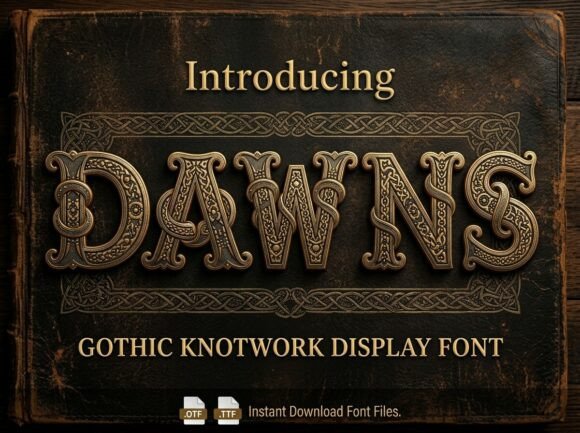
Medieval fonts are among the most misused typefaces in design, mostly because people choose them on atmosphere and then discover the practical problems afterwards. Blackletter capitals are frequently unreadable to modern eyes. The letterforms are dense enough that spacing errors merge whole words. Fine manuscript detail vanishes the moment you print small. This collection covers twenty medieval fonts with those problems addressed rather than ignored.
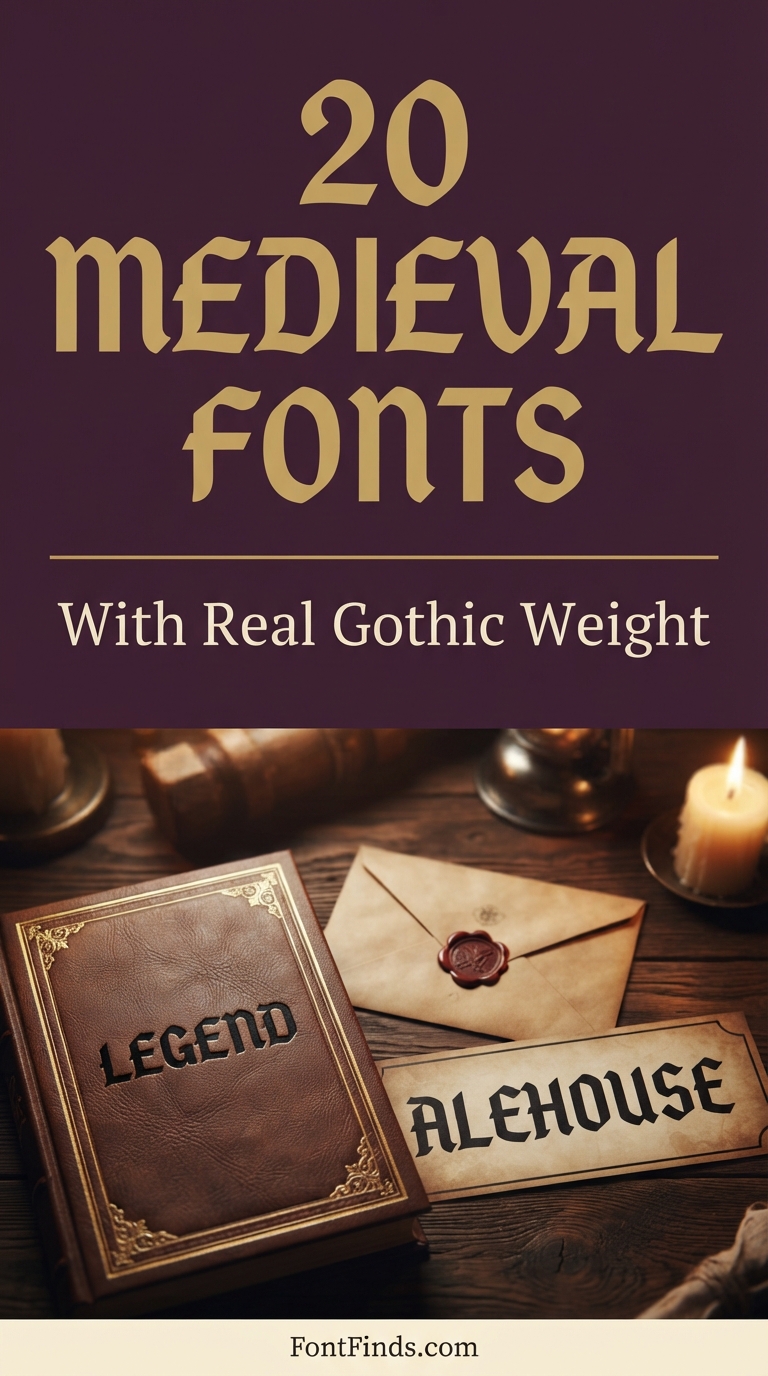
Why Medieval Fonts Are Harder to Use Than They Look
Blackletter developed as a handwriting system, written with a broad-nib pen held at a fixed angle. Every characteristic of the style follows from that tool: the thick vertical stems, the thin diagonal connectors, the angular terminals where the nib lifted. Understanding that origin explains most of the practical problems.
The first is density. Blackletter was designed to fit more text on expensive parchment, which means the letters are narrow and the gaps between them are deliberately small. Set it with default spacing at a large size and words visually merge into a solid block.
The second is capital legibility. Gothic majuscules were decorative initials, not everyday letters, and many are unrecognisable to anyone who has not studied the tradition. A capital that reads clearly to you may read as a completely different letter to your audience.
The third is reproduction. Authentic revivals carry the fine hairlines a pen produced. Those hairlines survive screen display and high-quality printing, and disappear in embroidery, vinyl cutting and small-scale print. Heavier modern reinterpretations solve this, which is why so many entries below are described as bold rather than authentic.
On historical associations. Blackletter carries specific cultural baggage in some regions, particularly in Germany where the style was heavily used in twentieth century political propaganda and remains loaded as a result. If your work will be seen in a European market, it is worth being aware that the same typeface reads differently there than it does elsewhere.
20 Medieval Fonts
Bold Blackletter
1. Ironcrest Gothic
Ironcrest Gothic is a commanding blackletter display face, and commanding is the right word for where it sits in the range. This is not the delicate manuscript end of the tradition, it is the heavy architectural end where letters read as carved rather than written.
Weight is what makes blackletter usable in modern design. The original manuscript hands were written with a broad nib at reading size, which produced fine detail that disappears at logo scale. Heavier reinterpretations like this survive being shrunk, printed on fabric, and reproduced in a single colour, which is where most authentic revivals fail.
My take: My first pick for anything that has to work on merchandise. Heavy blackletter is one of the few historical styles that screen prints cleanly.
Old World
2. Ebon Crest
Ebon Crest leans on old-world grandeur, with the elaborate capitals that define traditional gothic type. Those capitals are the most decorative part of any blackletter alphabet and the part that carries most of the historical signal.
They are also where legibility problems begin. Blackletter capitals vary enormously between designers and some are genuinely hard to read for anyone not familiar with the tradition. Before committing, type the actual first letter of your brand or title and show it to someone cold. If they misread it, no amount of atmosphere compensates.
My take: Test your specific initial before falling in love with the alphabet. Gothic capitals are where this style most often defeats its own purpose.
Medieval Display
3. Ironglyph
Ironglyph is described as striking medieval allure, positioning it in the historical rather than the modern reinterpretation camp. Fonts in this territory work best when the surrounding design agrees with them.
That means texture, muted colour and generous margins. Blackletter dropped onto a clean white modern layout looks like a costume, whereas the same face on aged paper stock with a restrained palette reads as intentional. The typeface can only do half the job.
My take: Pair it with texture. Medieval fonts on flat white backgrounds always look borrowed rather than designed.
Architectural
4. Dreadmoor
Dreadmoor draws on gothic architecture and ancient kingdoms, which shows up in the vertical emphasis of the letterforms. Architectural blackletter tends to be taller and narrower than manuscript blackletter, with strong upright stems and minimal curve.
Narrow proportions have a practical benefit: more characters fit on a line, which matters because blackletter set wide becomes unreadable quickly. If your title runs long, a condensed medieval face is a far better choice than trying to shrink a wide one.
My take: The better choice when the words are long. Most medieval fonts assume a short title and fall apart past about ten characters.
Why does my blackletter text look like a solid block?
Letter spacing is too tight, which is the default state for most gothic fonts. Increase tracking until the vertical strokes visibly separate, then increase it a little more.